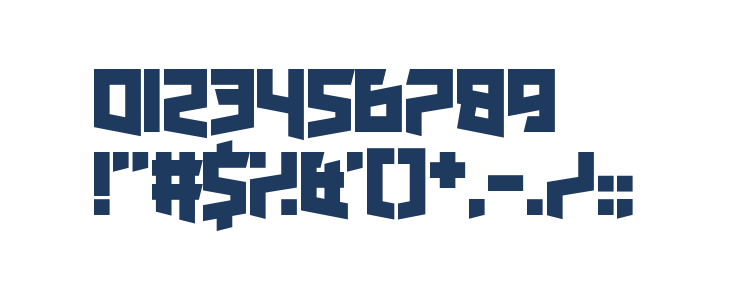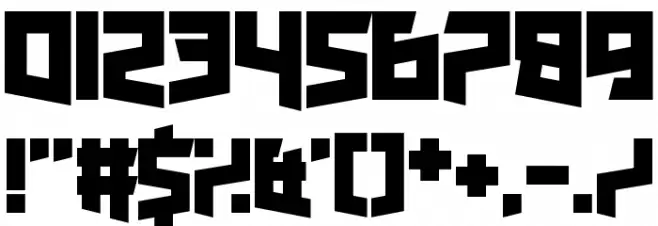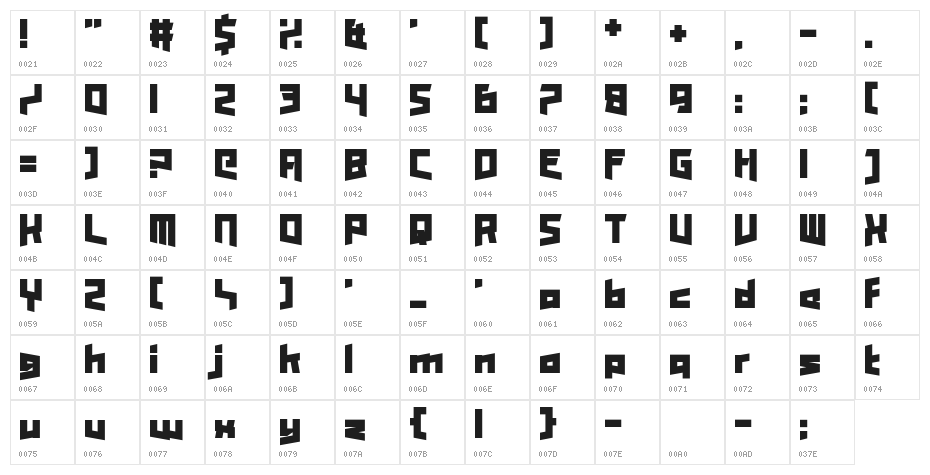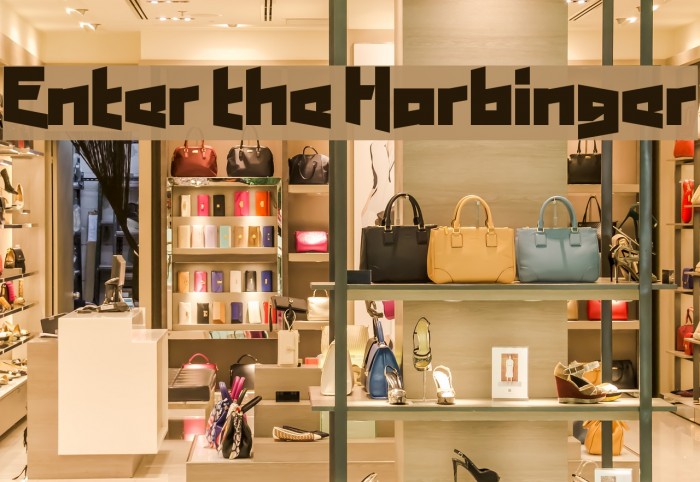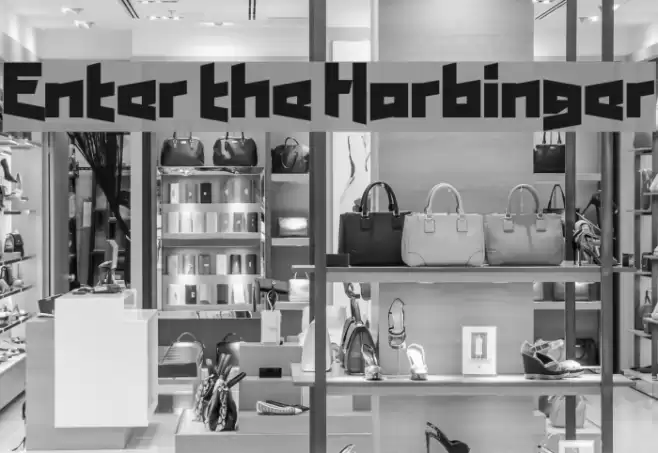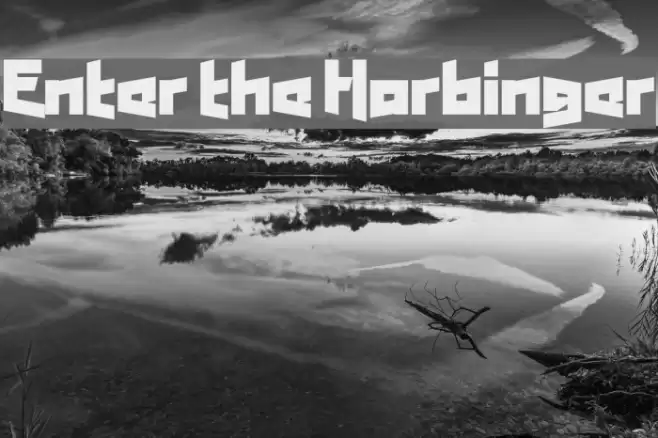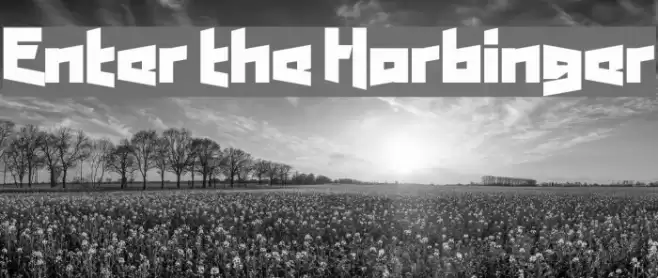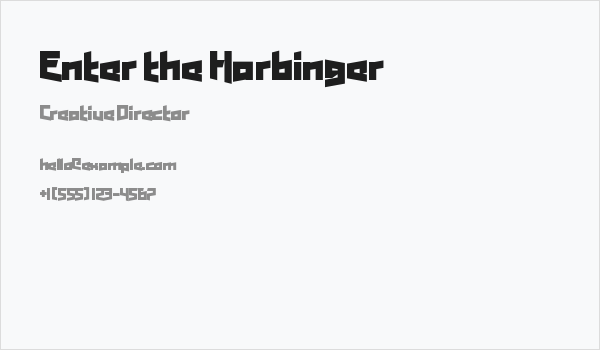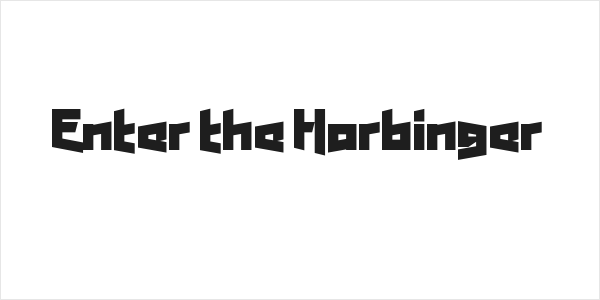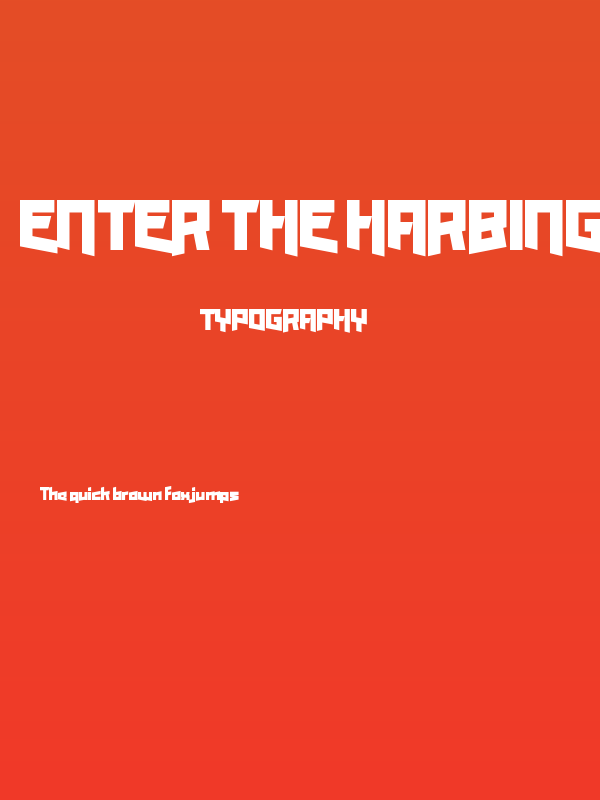
Enter the Harbinger Font
Enter the Harbinger Description
This font features a bold and angular design, characterized by sharp edges and geometric shapes. The letters are heavily stylized, giving them a futuristic and edgy appearance. The uppercase and lowercase letters maintain a consistent style, with exaggerated angles and a blocky structure. Numbers and special characters follow the same design principles, ensuring uniformity across all glyphs. The font's unique style makes it stand out, ideal for projects that require a strong visual impact.
| Proposed Projects | Ideal for video game titles, sci-fi movie posters, edgy branding, and modern graphic design projects. |